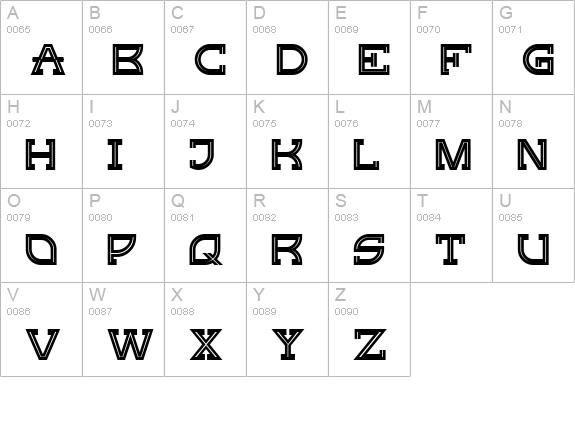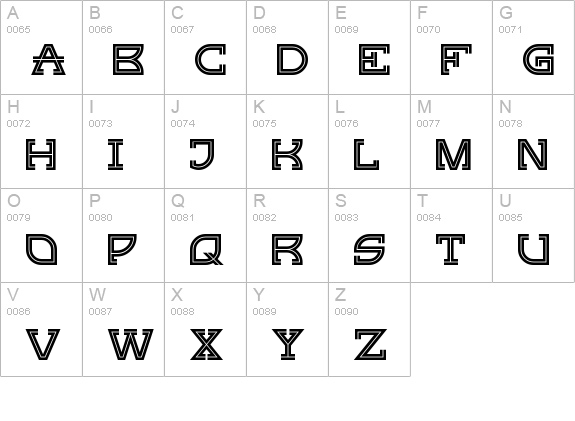
GingerPeachy Font Details
Introducing GingerPeachy font - a delightful and whimsical typeface that exudes charm and personality. This unique font features a playful combination of gingerbread-inspired curves and peachy hues, making it perfect for adding a touch of fun to your designs. Whether you're creating invitations, branding materials, or social media graphics, GingerPeachy font will surely stand out and captivate your audience. The best part? GingerPeachy font is completely free to download at FontsMarket.com! That's right, you can easily access this eye-catching font and start incorporating its cheerful vibes into your projects without any cost. Don't miss out on this fantastic opportunity to enhance your designs with the playful spirit of GingerPeachy font. Download it today and let your creativity shine!